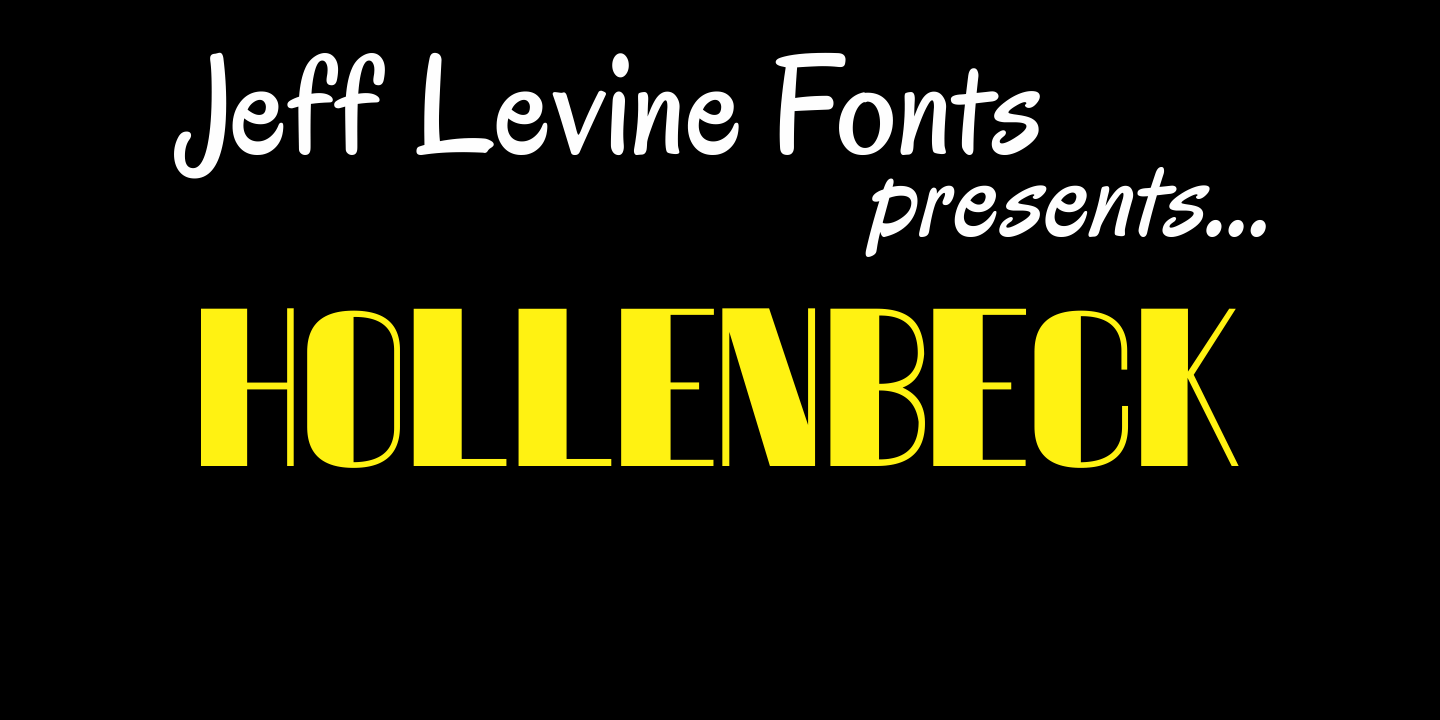
Hollenbeck
Hollenbeck JNL is the Art Deco, all-caps cousin of Jeff Levine's Hallandale JNL typeface.
This version utilizes the thick-and-thin stroke weights so popular during the Art Deco era, while retaining the look of hand-lettered copy.
Best suited at larger point sizes, this font is a nice alternative to the over-used display faces reminiscent of that time period.
Hollenbeck JNL Regular by Jeff Levine Fonts